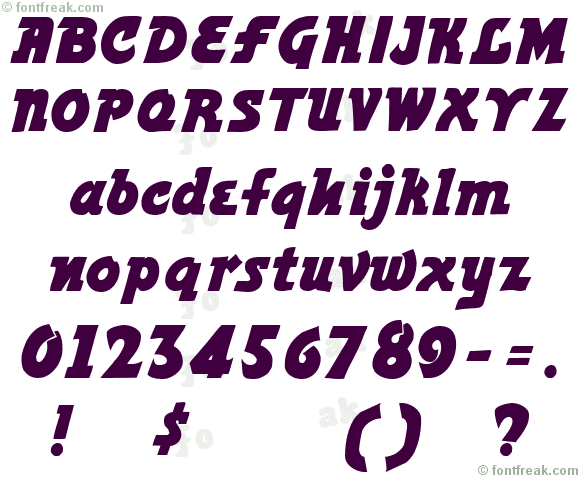
Power
The Power font by Peter Wiegel is a striking display typeface that embodies strength and dynamism. This bold font falls into the category of decorative typefaces, designed to capture attention and convey a sense of energy. Its unique visual characteristics include a heavy stroke weight and a slightly condensed letterform, creating a robust appearance. The contrasting elements in the design enhance legibility while ensuring that the text stands out in any context. The spacing is thoughtfully balanced, allowing for clear readability, making it suitable for various applications.
Best suited for impactful use cases, the Power font can elevate numerous design projects. It works exceptionally well for movie posters, where dramatic titles demand attention. Additionally, this font is ideal for sports branding, promotional materials, and event flyers, where a bold statement is necessary to engage audiences. Small business owners can also leverage this font for eye-catching signage and branding, ensuring their messages resonate with customers.
In conclusion, the Power font stands out due to its bold aesthetic and versatility across various design applications. It is not just a typeface; it is a statement. Whether you are crafting a vibrant marketing campaign or designing an eye-catching poster, the Power font free download offers the perfect blend of readability and style that can elevate your work to new heights.